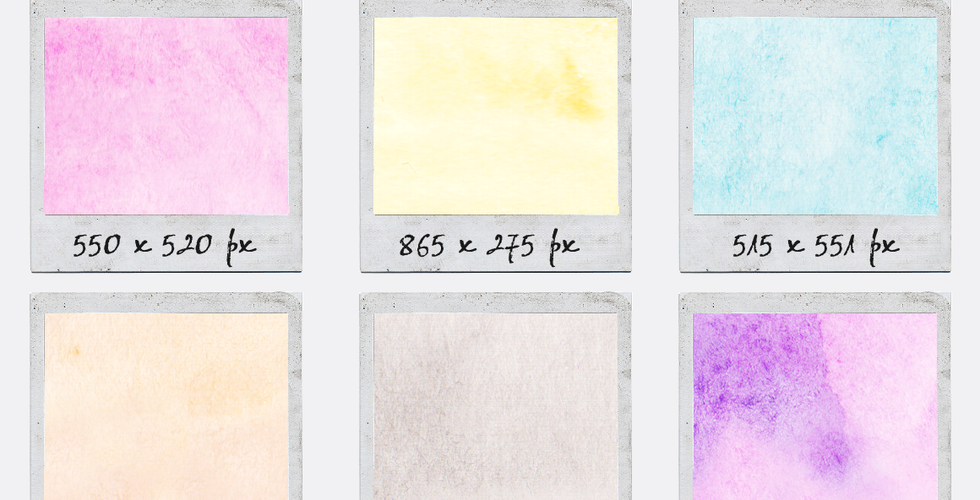
New font! Siren Song
Meet my latest font, Siren Song, a textured marker font with rough edges and dozens of ligatures that give it a true handwritten feel. OK, story time! I drew this font using a black highlighter pen (yes, like the yellow ones, but in black). I only bought one to test it out, and it starts running out of ink midway through the font (good job, Ana!). So I go back to the shop to get a new pen and (surprise!) they are out of black highlighters (maybe because they don't really highlight?). So I have to choose between stopping with the font altogether or continuing with the marker that's running out. Which is what I do, and that's how the "textured" part of the font happened! I think it gives it quite a unique feel. What do you think?
Siren Song includes both regular and slanted versions of the font, with bonus swashes and watercolor textures that complement it nicely to achieve eye-catching designs. This handwritten font includes:
A-Z, a-z, 0-9, accents, punctuation and symbols
Tons of ligatures, for a more natural handwritten feel
Contextual Alternates (for b, f, k and s)
An extra set of 26 swashes (a-z) and 10 symbols (0-9)
6 seamless watercolor patterns (.png, in various sizes) and 8 watercolors (.png with transparent background, in various sizes)
A bonus slanted version, for a more dramatic look
Siren Song
Siren Song is perfect to make a statement and will look great in quotes, logos, titles, postcards, tags. Check out some examples of uses below!
Siren Song